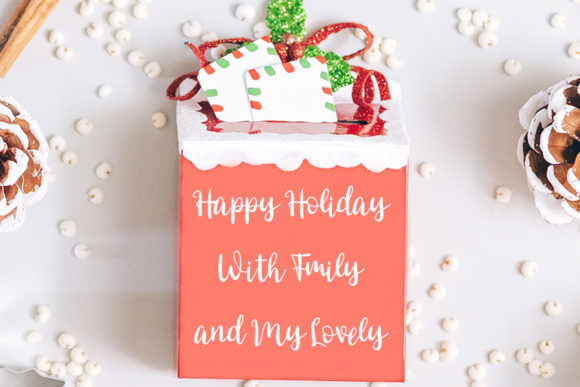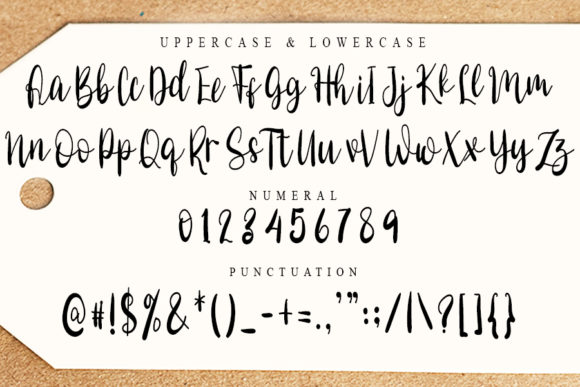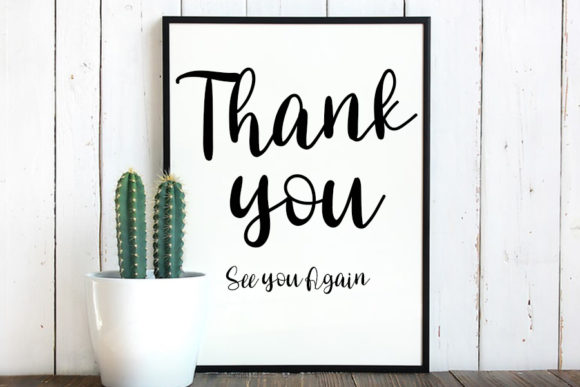
The Designer’s Delight: Daily Danissa Font
I’ll never forget the time I was working on a project for a client who wanted a bold, elegant script font to make their brand stand out. I scoured the internet, trying font after font, but nothing seemed quite right. That was until I stumbled upon Daily Danissa. This stunning script font has been a game-changer for my designs, and I’m excited to share its beauty with you.
As a designer, I’m always on the lookout for fonts that can elevate my work. Daily Danissa has become a go-to in my font library, and here’s why:
- ✨ Bold and Elegant: Daily Danissa is the perfect combination of bold and elegant. It’s perfect for making a statement in your designs.
- ✅ PUA Encoded: This font is PUA encoded, which means you can access all of the glyphs and swashes with ease. No more tedious searching for the perfect character!
- 💫 Versatile: Daily Danissa works beautifully for a variety of design projects, from logos and branding to invitations and social media graphics.
While Daily Danissa is an amazing font, there are a few quirks to be aware of:
- 🤔 Glyph Overload: With so many glyphs and swashes available, it can be overwhelming to navigate. Take some time to explore the font and get familiar with its features.
The Story Behind Daily Danissa
While the origins of Daily Danissa are shrouded in mystery, it’s clear that this font was designed with love and care. The creator of Daily Danissa was likely inspired by the beauty of handwritten script and the need for a bold, elegant font that could make a statement in designs.
Q: Is Daily Danissa difficult to use?
A: While Daily Danissa has a lot of features, it’s actually quite easy to use. Take some time to explore the font and get familiar with its features, and you’ll be creating stunning designs in no time!